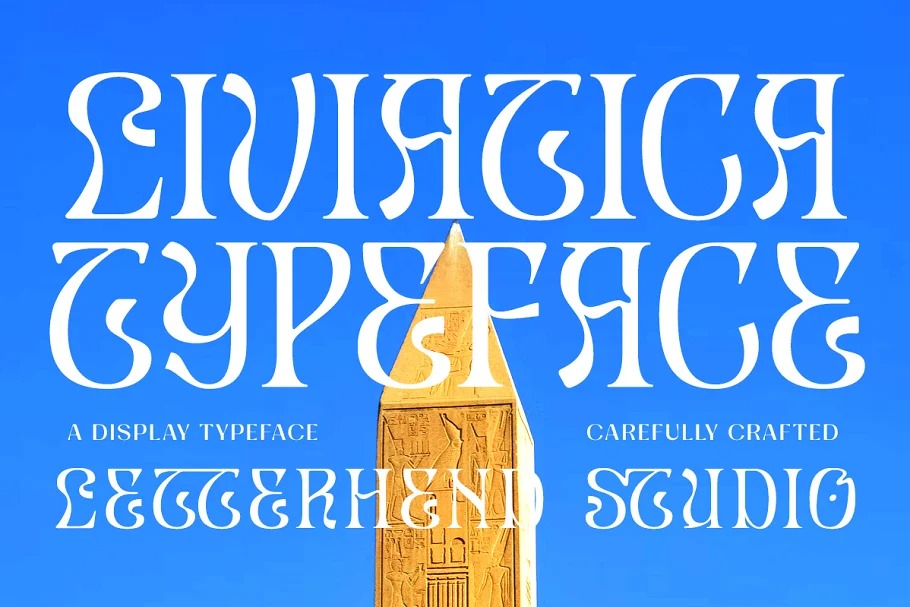
Liviatica Display Font
This is a groovy inspired typeface from designer Letterhend Studio. It’s retro, bold, and playful. Perfect if you need a dose of fun in your project. The letterform makes this typeface unique and stands out rather than the regular serif font. Very suitable for logo, headline, tittle, and the other various formal forms such as invitations, labels, logos, magazines, books, greeting / wedding cards, packaging, fashion, make up, stationery, novels, labels or any type of advertising purpose.